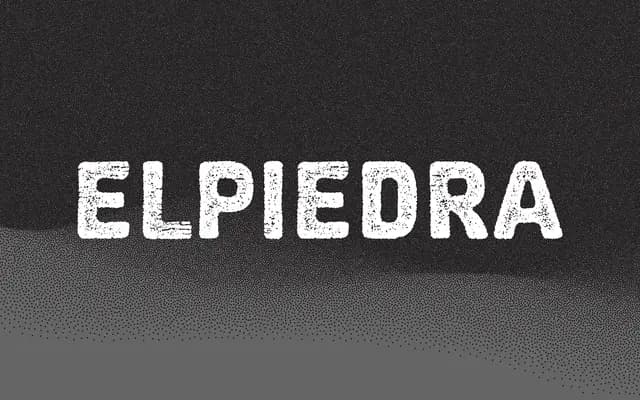
Elpiedra
A rough, distressed display face with a deliberately worn texture suited to bold, confrontational design work.
Smokey in character and irregular in texture, it brings a raw, hand-worn quality to headlines, posters and packaging where a polished sans would feel out of place. The distressing is built into the letterforms rather than applied as an effect, giving it a consistent grit across settings. Works well in music, streetwear and subcultural contexts where authenticity of form matters.
A rough-textured display face with deliberate distressing and worn aesthetics, placing it firmly in the grunge display subcategory.